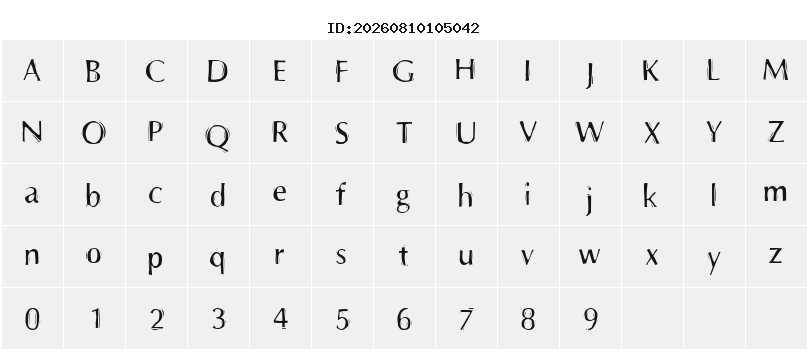
P22Prehistoric Preview
• Font Name: P22Prehistoric
• Font Style: Pen
• Full Font Name: P22Prehistoric Pen
About P22Prehistoric.ttf
P22Prehistoric.ttf is a modern, elegant sans-serif font designed for ultimate readability and visual harmony. Perfect for branding, headlines, web design, and print materials.